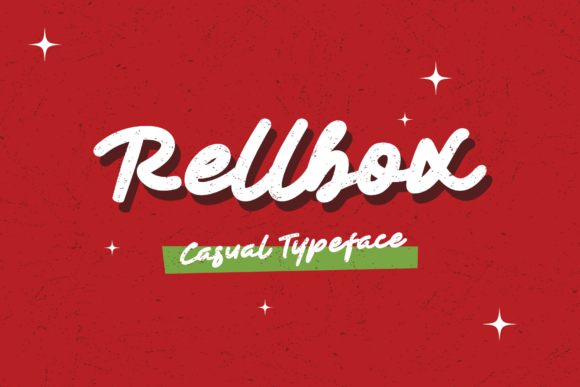
Embark on a typographic adventure with Rellbox, the script font family that exudes charm and sophistication. Crafted by the skilled hands of DUMADI, Rellbox effortlessly combines the allure of handwritten elegance with the crisp precision of digital artistry.
Step into a world where your designs come alive with a touch of individuality. Rellbox's fluid strokes and graceful curves lend an air of timeless beauty to any project, whether it's a heartfelt wedding invitation, a heartfelt thank you card, or an inspiring quote that speaks to your soul.
With Rellbox, the possibilities are endless. Create logos that leave a lasting impression, business cards that command attention, and greeting cards that warm the hearts of your loved ones. Its versatility extends to every corner of your design endeavors, adding a touch of magic to every creation.
Immerse yourself in the world of Rellbox and discover a font family that speaks to your creative spirit. Let your imagination soar as you explore the endless possibilities that await. Embrace the charm, embrace the elegance, and embrace the power of Rellbox.